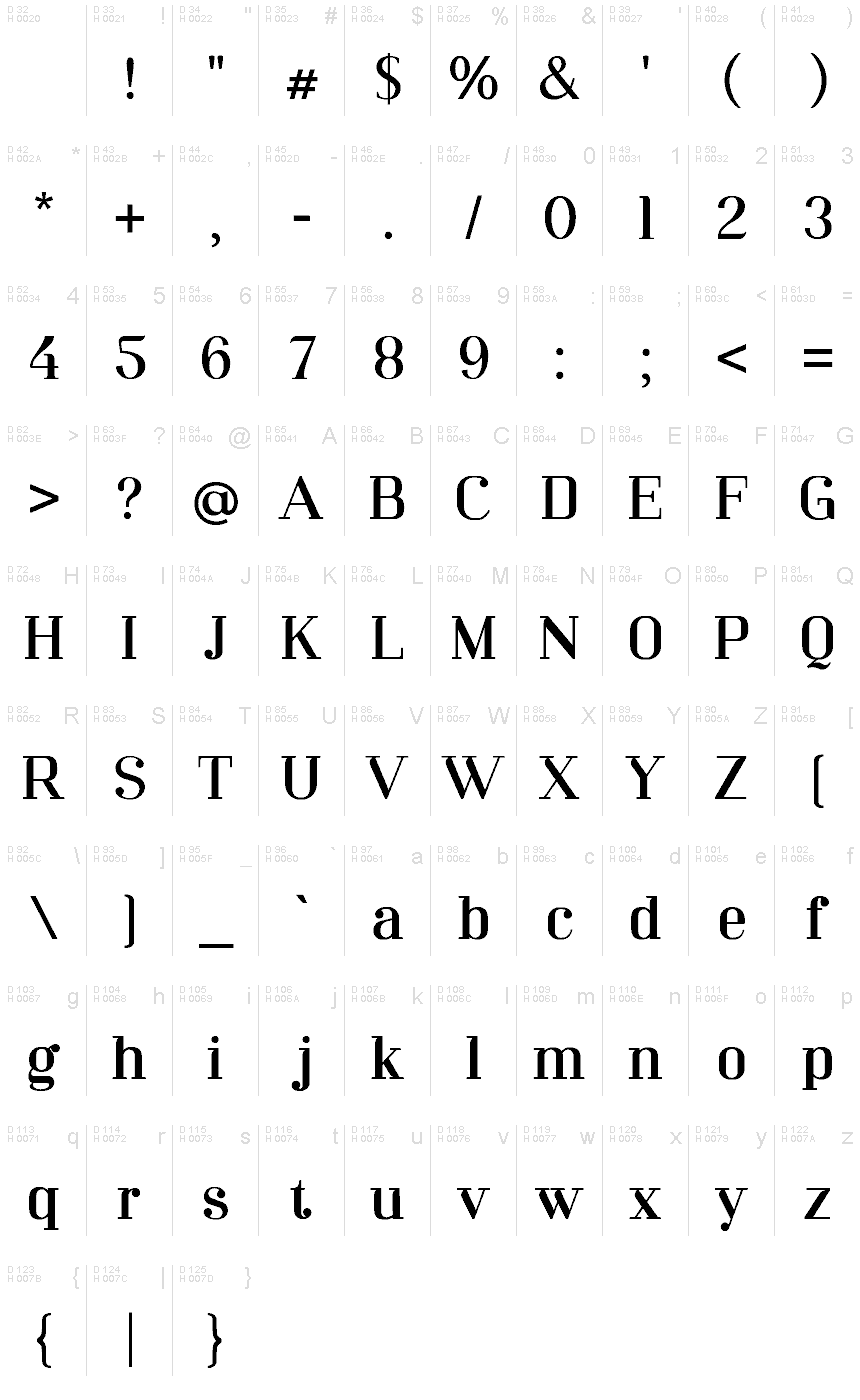
Mechanized Regular
Mechanized font by UI Creative is an elegant serif font combining sophistication and tradition in a structured appearance. The font has a classic design making it perfect for all professional and formal uses that need to come out authoritative yet pleasing to the eye. The structured nature of the typeface is the secret to its power.
Use this free serif font for newspapers, magazines, articles, books, essays, business cards, and other types of documentation. Make heavy use of it across websites with articles and learning materials that people find enjoyable reading on their desktops or mobile devices. It’s beautiful in print as well as digital contexts.